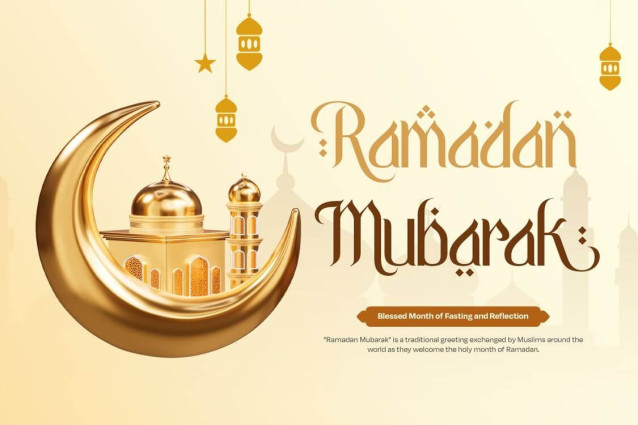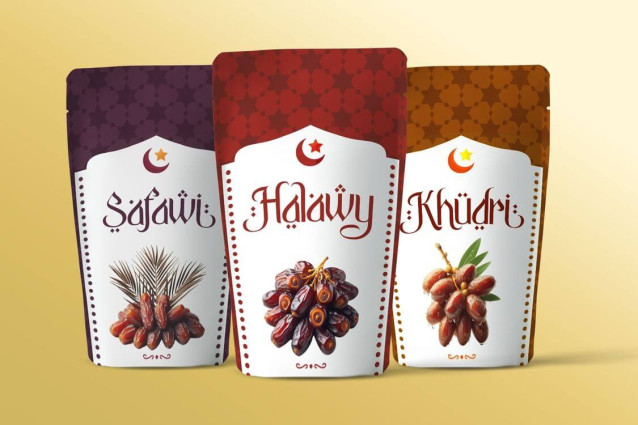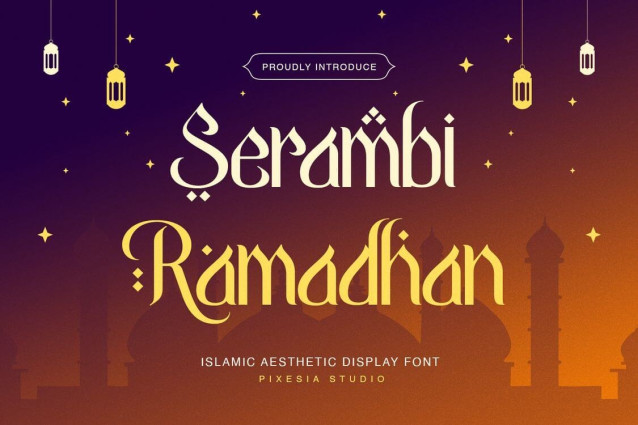
Serambi Ramadhan Font
Serambi Ramadhan Font is an aesthetic arabic style font that infuses traditional Islamic aesthetics with modern design elements. This elegant and intricate typeface is perfect for creating visually stunning Ramadhan-themed designs, whether for religious texts, decorative banners, or festive invitations.
Serambi Ramadhan is perfectly suited for branding, logotype, social media posts, headlines, logo, greating card, digital media, signage, advertising, product packaging, label, photography, watermark, t-shirt, website design, invitation, poster, stationery and any projects seeking a touch of authentic Islamic aesthetic.